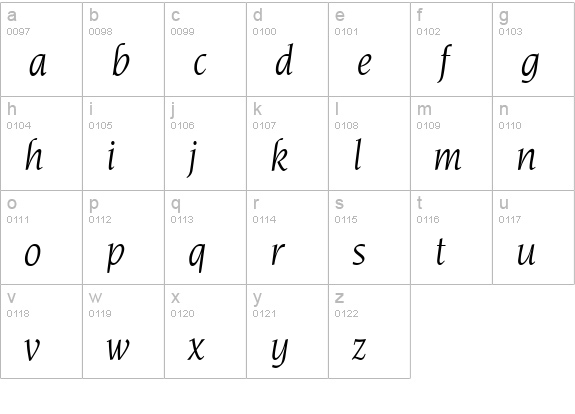
Novelty-Italic is a distinctive, italic variant in the Novelty typeface family \xE2\x80\x94 well suited to design and typography projects.
Novelty-Italic font is a unique and eye-catching typeface that combines a playful and modern aesthetic with a touch of elegance. The italicized design adds a dynamic and stylish flair to any text, making it perfect for headlines, branding, and creative projects. Its quirky yet sophisticated look is sure to make a statement and grab the attention of your audience. What's even better is that Novelty-Italic font is available for free download at FontsMarket.com. Now you can enhance your designs with this captivating font without breaking the bank. Don't miss out on this opportunity to add a touch of novelty to your projects with Novelty-Italic font. Download it today and let your creativity shine!